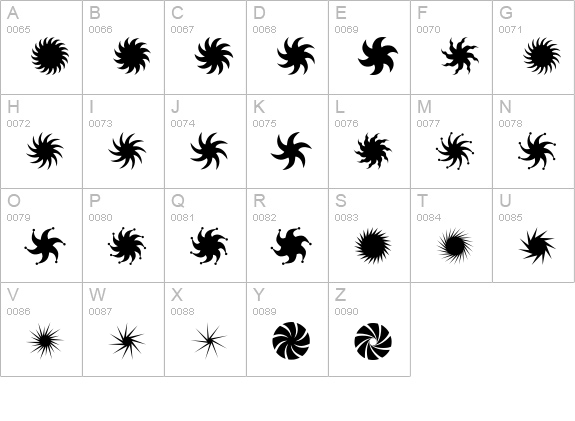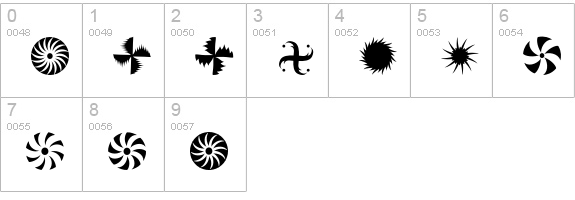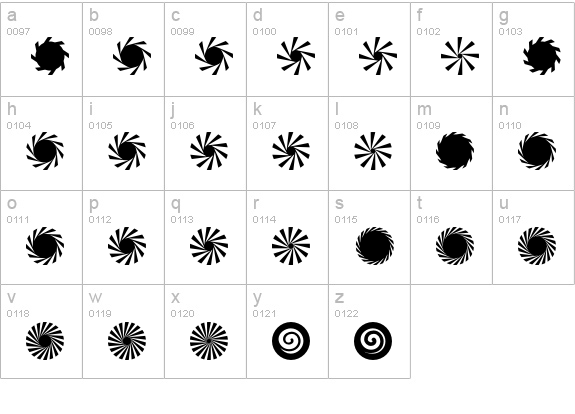
AltemusPinwheels Font Details
AltemusPinwheels font is a whimsical and playful typeface that is perfect for adding a touch of fun and creativity to your designs. With its unique pinwheel-inspired letterforms, this font is sure to make a statement and capture attention. Whether you're designing greeting cards, party invitations, or children's books, AltemusPinwheels font will bring a sense of joy and lightheartedness to your projects. The best part? AltemusPinwheels font is available for free download at FontsMarket.com. With just a few clicks, you can add this charming font to your collection and start using it in your designs right away. Don't miss out on the opportunity to enhance your projects with the delightful AltemusPinwheels font - download it today and let your creativity shine!